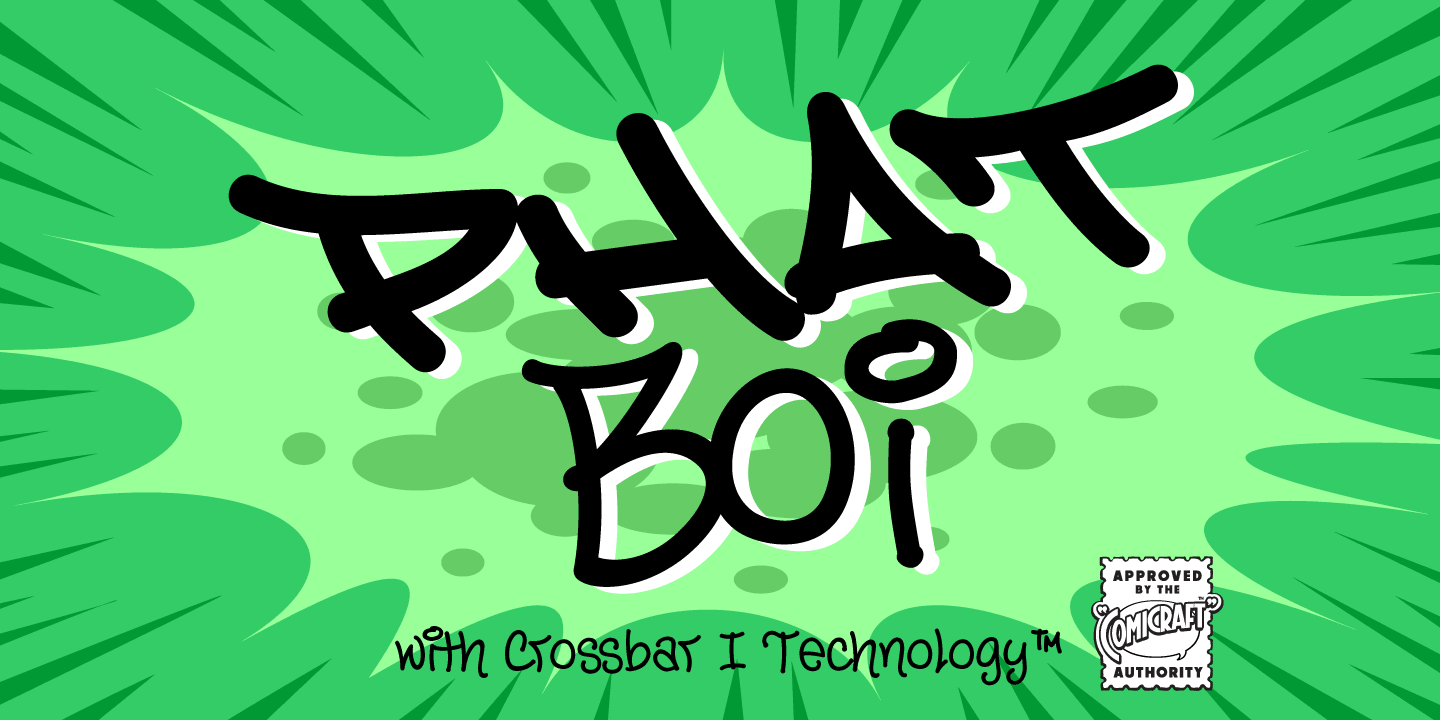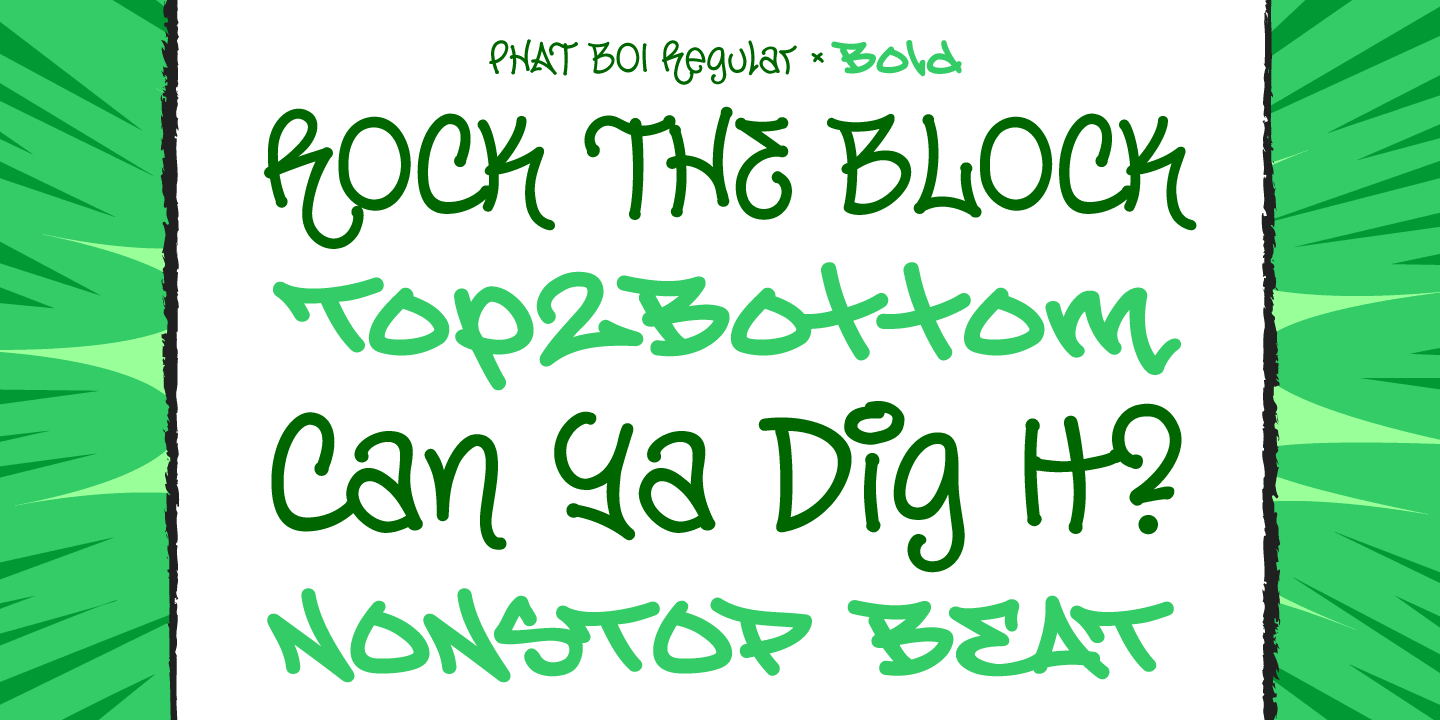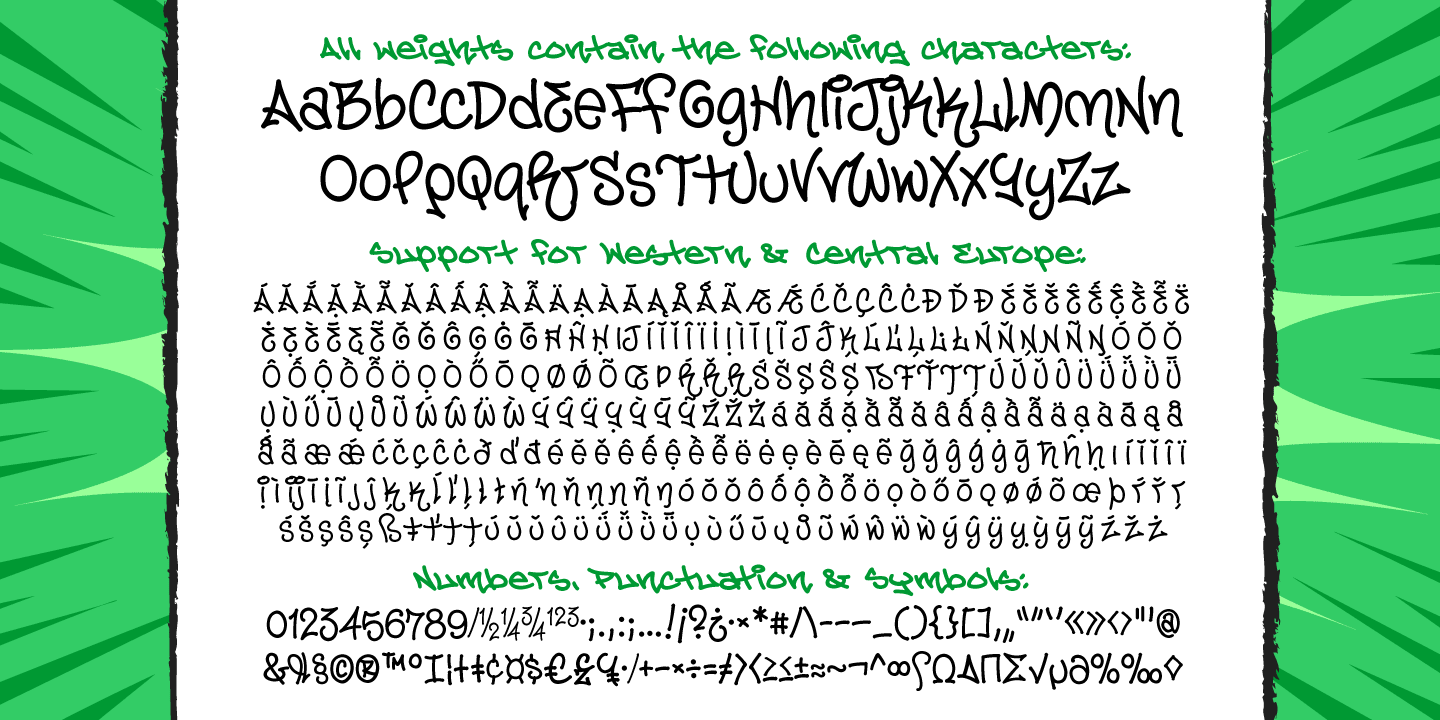
Phat Boi
Word up! DJ Phatboi and triple threat JG Roshell has been bustin' out for all the young font gunnahs out there. He bein' crazy, givin' out the love and non-stop dope moves... You feel it? Be showin' ya respect and holla at the Phat Boi an' y'all be cool. Aiiiigggghhht?! Phatboi is Da Next Big Thang! Stay bent.
JG originally created Phat Boi for titles in the mid-90s cyberpunk comic GHOST RIDER 2099, and it has since become the go-to whenever a wall needs scrawling!